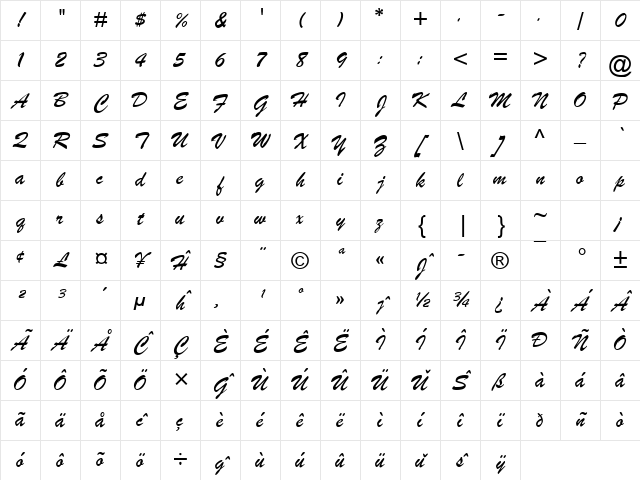
Complete Brush Script MT Eo Italic glyph index. Displaying only characters natively supported by Brush Script MT Eo Italic font.
Brush Script MT Eo flows with the natural rhythm of handwritten lettering, making it ideal for designs that call for warmth and personal expression.
Font Pairing: Combine Brush Script MT Eo with a simple geometric sans for maximum contrast - the tension between flowing curves and clean structure is a classic typographic pairing.
Pro Tip: Use Brush Script MT Eo for short runs of text - names, titles, or taglines. Extended body copy in script faces tires the eye quickly.